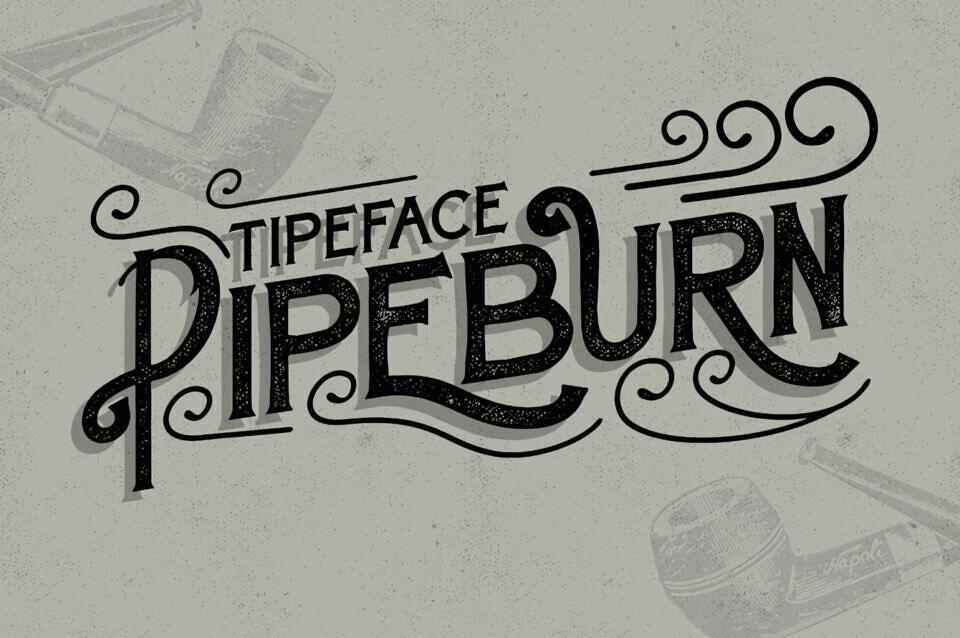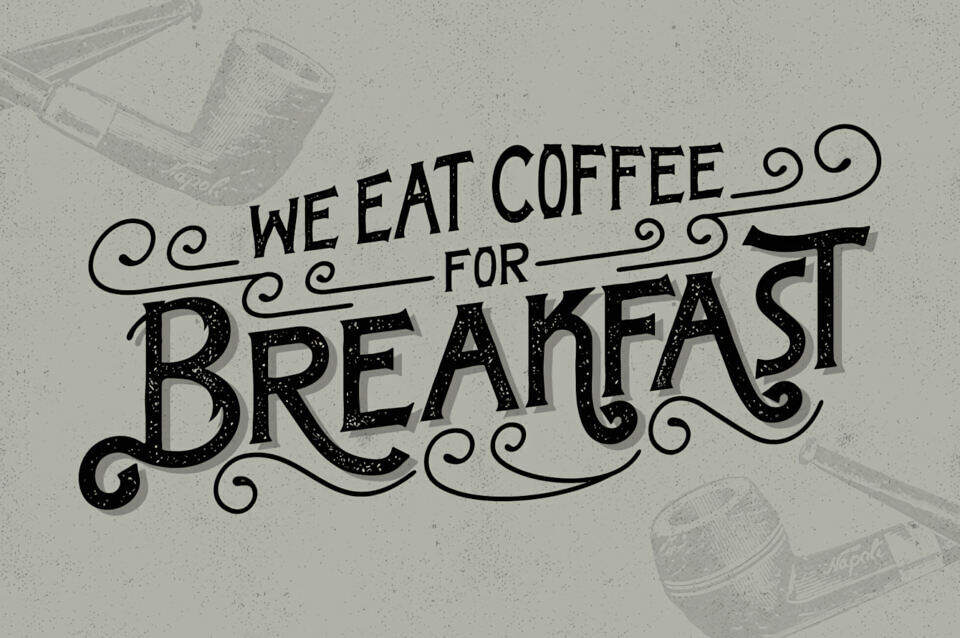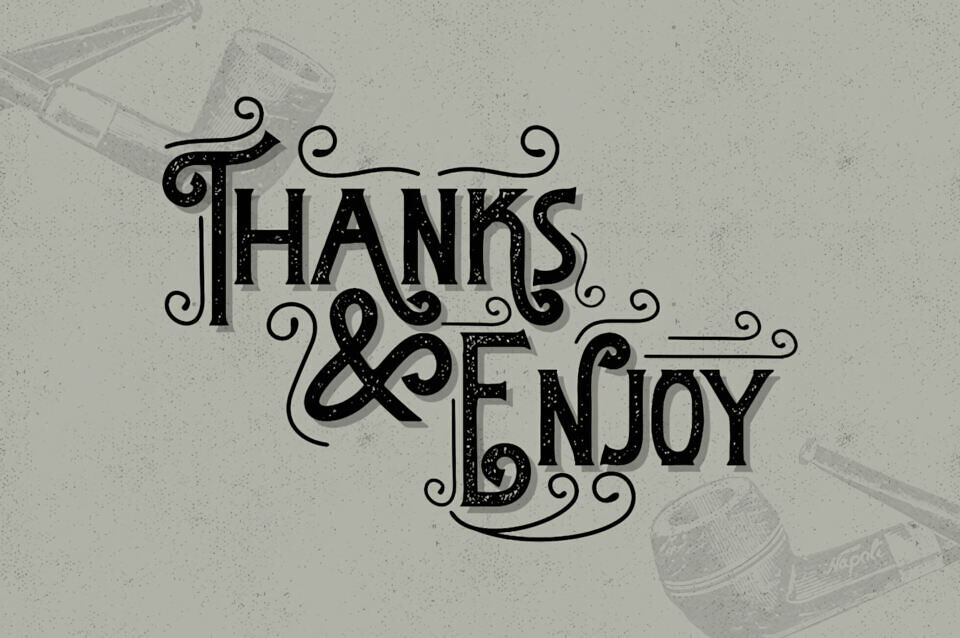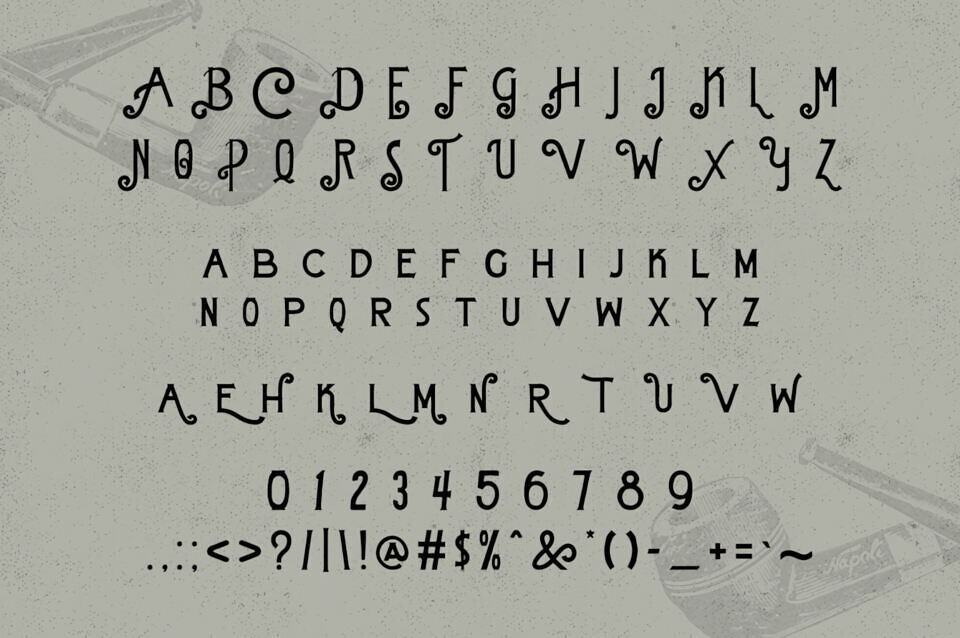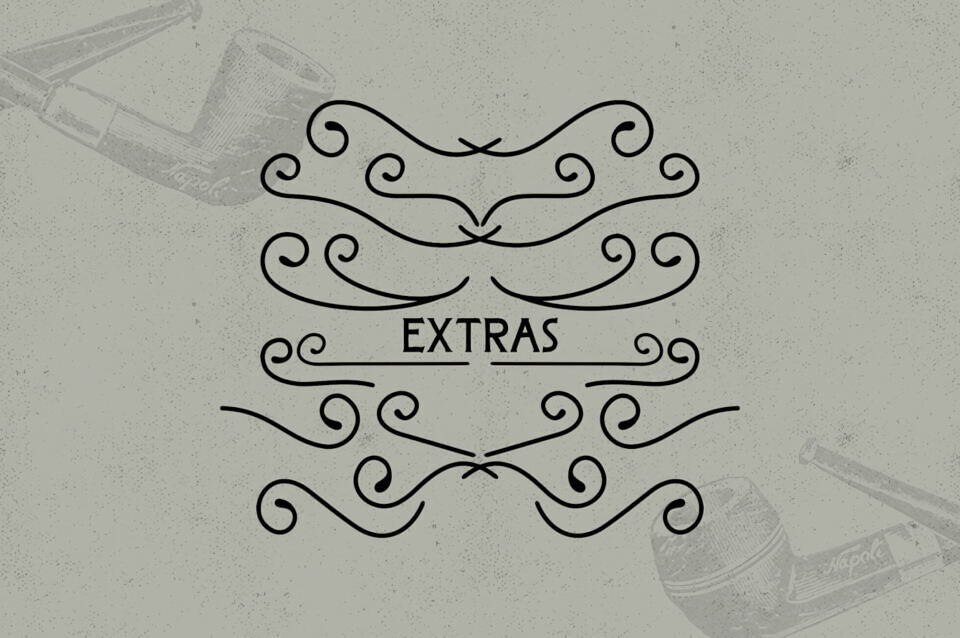
Pipeburn Font, inspired by the creator’s grandfather’s tobacco pipe, blends classic and modern aesthetics with a unique ornament smoke flair. This typeface offers alternative styles for versatile customization, making it ideal for vintage designs, posters, brand names, and labels.
Its elegant yet bold letterforms, paired with decorative elements, evoke a nostalgic charm while maintaining a contemporary edge. Perfect for projects needing a touch of retro sophistication, Pipeburn Font captures the essence of timeless design with a modern twist.